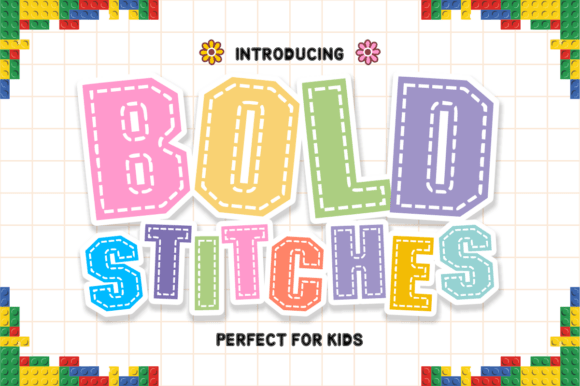
Bold Stitches Font: Turn Campaigns into Visual Statements
Some typefaces whisper, others shout, and then there is one that threads the needle between craftsmanship and commanding presence. Bold Stitches is a chunky display font built with a distinctive dashed-line detail that replicates the texture of real needlework. The thick, blocky letterforms carry a handcrafted energy that feels both playful and deliberate, making it a standout creative font for marketing professionals who need their visuals to stop thumbs mid-scroll.
For content creators and social media designers, the right display font is not just an aesthetic choice but a strategic communication tool. Bold Stitches delivers an unmistakable personality that can anchor a campaign, define a product launch, or inject warmth into an otherwise polished digital presence. Its stitched appearance suggests care, effort, and a human touch, qualities that audiences increasingly crave in an automated digital landscape.
Stitching Personality Into Scroll-Stopping Social Media Graphics
When every pixel of a social feed competes for attention, a premium font with tactile charm becomes a competitive advantage. Bold Stitches transforms ordinary headlines into visual hooks. On social media graphics for Instagram posts, the dashed-line texture creates an optical pause, a moment of visual curiosity that invites the viewer to linger long enough to absorb the message.
Consider a Pinterest pin promoting a crafting workshop. The stitched letterforms become the message itself, signaling creativity before a single word is read. YouTube thumbnails benefit similarly. A Bold Stitches title treatment layered over a vibrant background telegraphs DIY energy, maker culture, or playful urgency, depending on how the designer deploys it. The font works exceptionally well as a decorative accent in web design hero sections, where its oversized presence can communicate brand warmth without sacrificing legibility.
For reel covers and short-form video graphics, this display typeface provides instant context. A two-second glance at a Bold Stitches headline tells viewers what emotional lane the content occupies. That speed of recognition is invaluable when audiences decide in fractions of a second whether to engage or keep scrolling.
Building Visual Hierarchy With Chunky, Tactile Letterforms
Effective marketing communication depends on guiding the eye through information in a deliberate sequence. Bold Stitches excels as a primary headline font precisely because its weight and texture demand first attention. When placed above a clean sans serif font for body copy, the contrast creates an unmistakable visual hierarchy. The stitched headline anchors the composition while supporting text recedes into a readable, functional role.
This dynamic becomes especially useful in email headers, where the preview pane might only show the top inch of a design. A Bold Stitches announcement banner communicating a flash sale or limited drop carries enough visual weight to convey urgency even in miniature. The blocky structure holds its shape at small sizes, and the dashed detailing adds texture recognition that survives scaling better than many delicate script font or handwritten font alternatives.
Digital ads running on display networks face similar constraints. Viewers glance for less than a second. Bold Stitches headlines paired with a restrained serif font for supporting details create an editorial-meets-handmade aesthetic that feels both credible and approachable. This font pairing strategy broadens the font's usefulness across industries, from boutique retail to food and beverage branding to nonprofit campaign creative.
First Impressions and the Handcrafted Advantage
Audience perception solidifies fast. The typeface a brand chooses for a launch graphic or promotional banner communicates values before the viewer processes language. Bold Stitches signals intention and artistry. Its needlework-inspired detailing suggests a maker behind the message, a real person who stitched the idea together rather than an algorithm generating content.
For personal branding, this handcrafted impression is gold. A coach, consultant, or creator using Bold Stitches in their logo design or Instagram quote graphics telegraphs authenticity without sacrificing professionalism. The font feels polished enough for commercial use yet textured enough to avoid the sterile perfection that makes some modern typography feel impersonal. Small business marketing teams can deploy it across seasonal promotions, where the stitched aesthetic pairs beautifully with autumn crafting themes, holiday warmth, or spring renewal campaigns.
Product teasers gain an extra layer of anticipation when rendered in Bold Stitches. The stitched lettering visually implies something is being assembled, prepared, or crafted behind the scenes. A "Coming Soon" graphic in this typeface does not just announce a launch. It suggests care in the making, which elevates perceived value before the product even appears.
Real Campaign Applications That Convert Curiosity Into Action
Imagine a weekend flash sale for an online boutique. The Instagram story graphic uses Bold Stitches for "48 HOURS ONLY" across the top, the dashed letters practically vibrating with urgency against a bold background color. Below it, a crisp sans serif delivers the discount code. The visual hierarchy is instant. The emotional register is excitement mixed with handmade charm. This is not a cold corporate clearance. It feels like an insider opportunity.
A webinar banner promoting a creative business workshop takes a different approach. Bold Stitches renders the event title in warm cream tones over a textured kraft paper background. The stitching detail mirrors the workshop topic, perhaps surface pattern design or embroidery techniques, creating a seamless message where type and theme reinforce each other. Paired with an elegant editorial design layout, the graphic feels elevated enough for LinkedIn promotion yet approachable enough for Instagram.
Inspirational quote graphics, a staple of personal brand content, gain memorability when the headline sits in Bold Stitches. The stitched quality suggests the words were deliberately crafted rather than auto-generated, which deepens the perceived authenticity of the message. A content series built around weekly motivational quotes can use Bold Stitches consistently across all graphics, building brand identity through typographic recognition alone.
An online shop launching a new product collection can use Bold Stitches for the collection name across website banners, email headers, and social ads. The consistency of the stitched typeface across touchpoints reinforces the launch as a cohesive event rather than scattered announcements. The font becomes a visual thread, quite literally, stitching the campaign together across platforms.
Where Bold Stitches Thrives and Where Restraint Pays Off
This font performs best in short, punchy bursts. Headlines, callouts, titles, logo marks, and decorative accents are its natural habitat. A three-to-five-word phrase rendered large in Bold Stitches commands attention. Attempting to set full sentences or body copy in the font risks visual fatigue, as the stitched detailing and blocky structure become overwhelming in dense passages.
For packaging design mockups shared in social content, Bold Stitches can serve as the product name treatment, instantly conveying a craft or artisanal positioning. A candle label, a soap wrapper, or a coffee bag design benefits enormously from the font's tactile suggestion. Even in flat digital renders, the stitched letterforms imply texture and materiality that flat vector type cannot match.
Seasonal campaign graphics find an especially strong ally in Bold Stitches. Holiday sale announcements, Mother's Day promotions, back-to-school events, and summer market pop-ups all gain warmth from the stitched aesthetic. The font feels celebratory without being childish, festive without being temporary.
Mobile Readability and the Small-Screen Test
Marketing graphics live and die on mobile screens. Bold Stitches holds up remarkably well in small previews because its thick strokes and high-contrast detailing survive compression and scaling. Unlike thin handwritten styles that can disappear in thumbnail views, the chunky structure of this display font remains legible even at reduced sizes.
That said, designers should maintain generous sizing for phone screens. A headline set below 24 pixels may lose the stitched detailing that makes the font special. Keep Bold Stitches text large and limit it to the hero message. Supporting information should always fall to a simpler, highly readable sans serif font optimized for small text rendering. This discipline preserves both visual impact and functional clarity.
For fast-scrolling feeds, the textural pattern of the dashed lines acts as a recognition cue. Followers who have seen a brand use Bold Stitches consistently will identify new content faster, even before consciously reading the words. That pattern recognition builds brand identity over time and increases the likelihood of stopping the scroll.
Smart Font Pairing Strategies for Professional Campaigns
The most effective font pairing for Bold Stitches is one that stays out of its way. A neutral sans serif font with clean lines and even stroke weights provides the perfect counterbalance. The stitched display face handles personality and texture, while the sans serif handles information delivery without competing for attention. This combination works across web design, email templates, digital ad sets, and social media templates.
For brands pursuing a more editorial or literary aesthetic, pairing Bold Stitches with a refined serif font creates an intriguing tension between handmade warmth and classic sophistication. This approach suits magazine-style layouts, blog feature images, and content upgrades like checklist PDFs or workbook covers. The stitched headline feels contemporary and craft-forward, while the serif body text grounds the design in tradition and credibility.
Designers building reusable design assets for client work should explore these pairings early. A template set that combines Bold Stitches headlines with a versatile workhorse sans serif becomes a powerful tool for rapid campaign deployment. Swap colors and imagery, and the typographic foundation remains strong across multiple clients, industries, and platforms.
Commercial Considerations for Marketing Teams
Before integrating Bold Stitches into paid campaigns, client deliverables, or branded templates, marketing teams must review the commercial font licensing terms. Usage rights for advertising, template distribution, and embedded digital assets vary by foundry. Confirming coverage for intended applications protects both the creative investment and the legal standing of campaign materials.
Once licensing is secured, Bold Stitches can become a signature element in a brand's design assets library. Its distinctive look resists blending in, which is exactly what marketers need in crowded digital spaces. Unlike generic display typefaces that fade into the background of homogenous feed aesthetics, this stitched creative font claims visual territory and holds it.
From launch announcements and seasonal promotions to webinar graphics and YouTube channel art, Bold Stitches offers marketing professionals a typographic tool that communicates effort, warmth, and attention to detail. In a digital landscape where audiences increasingly value authenticity and human connection, a typeface that literally looks stitched together by hand might be the most honest visual choice a brand can make.